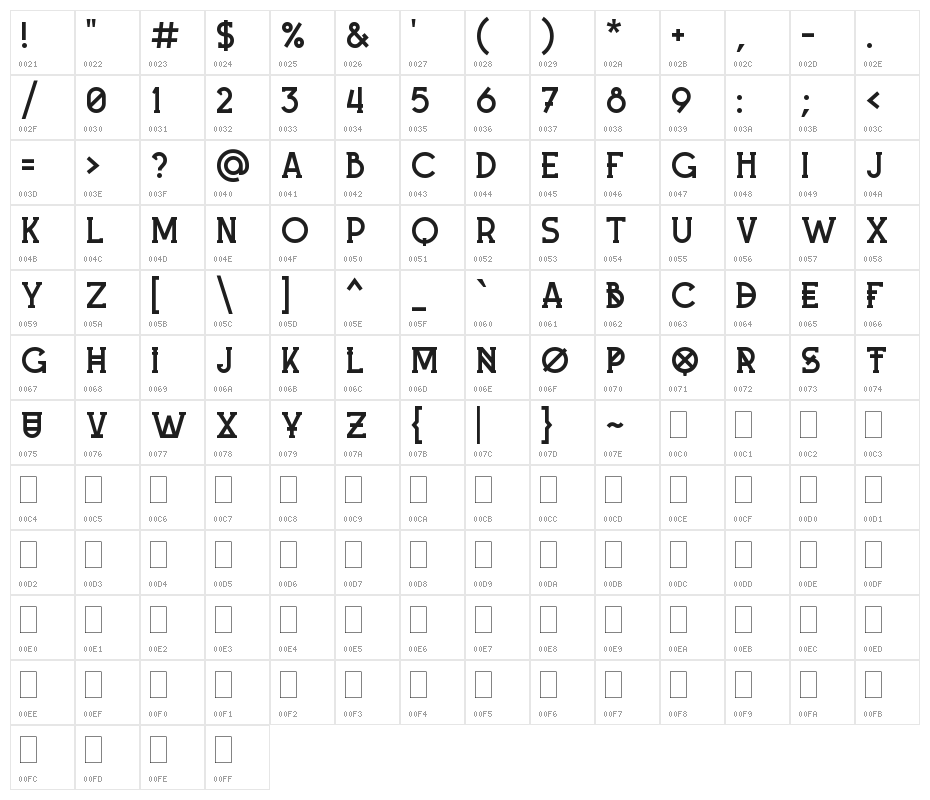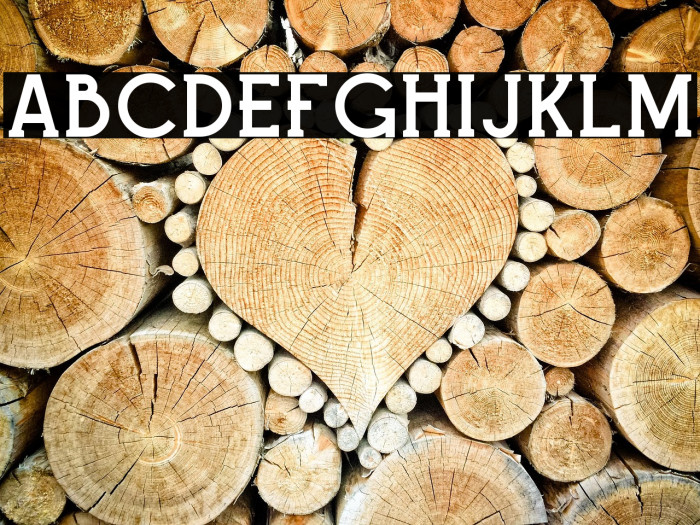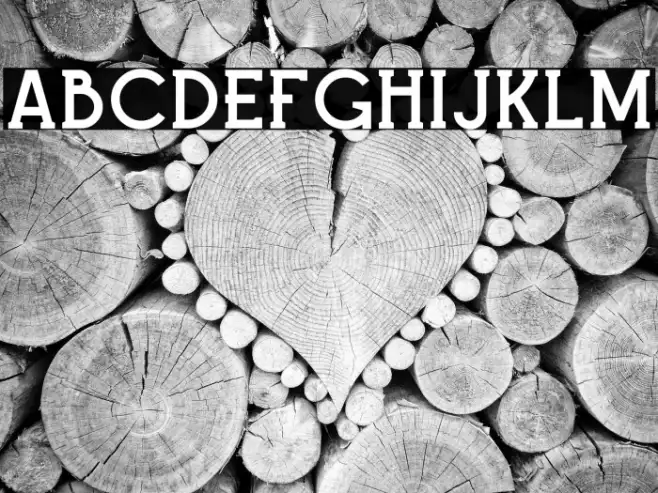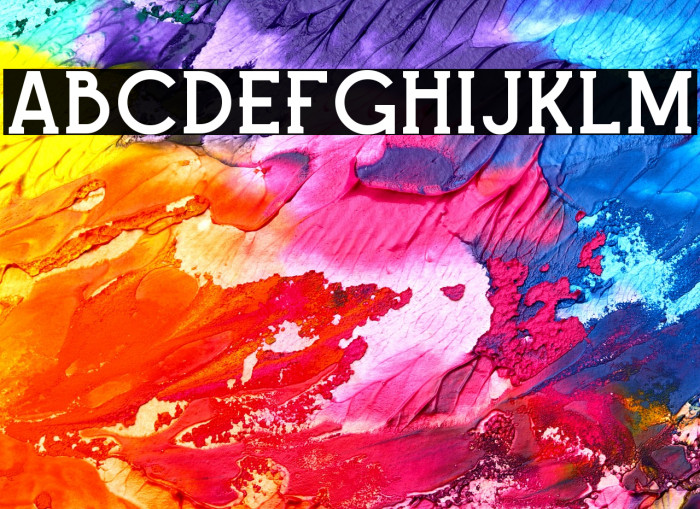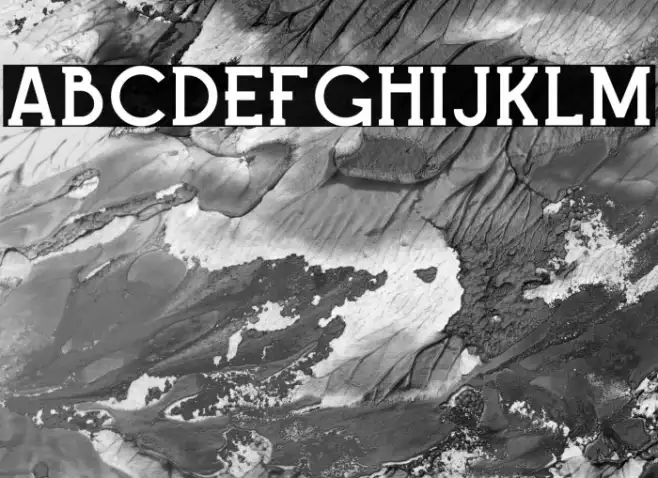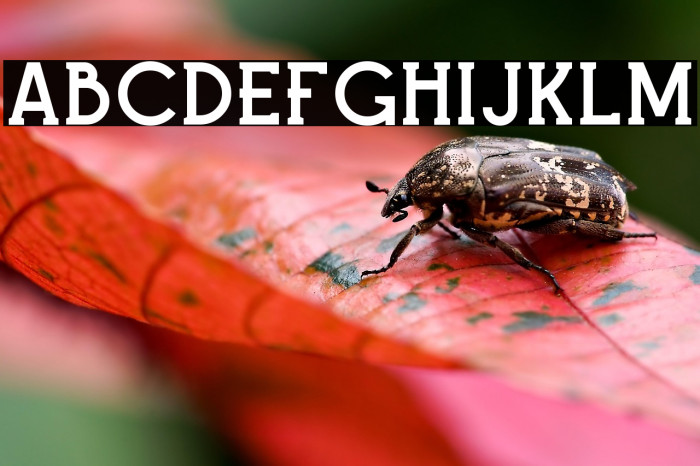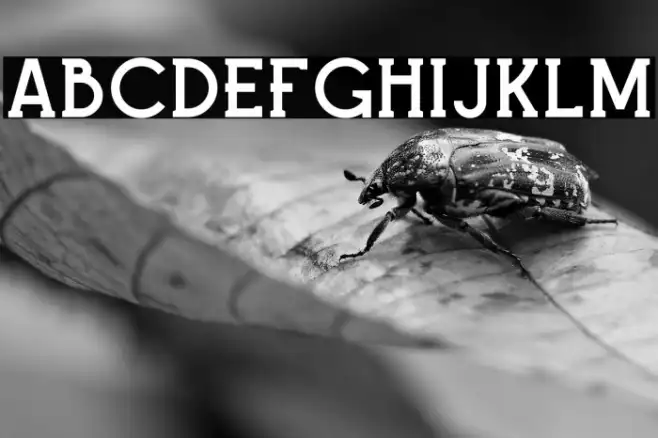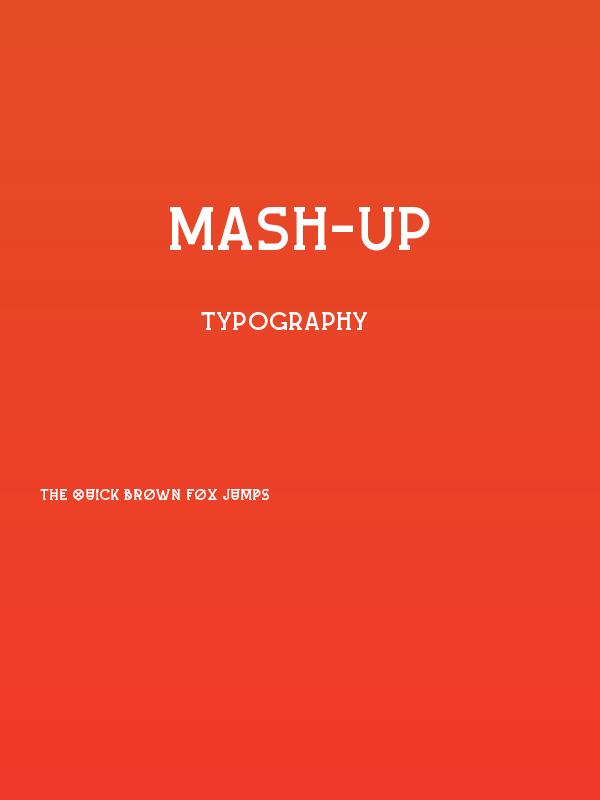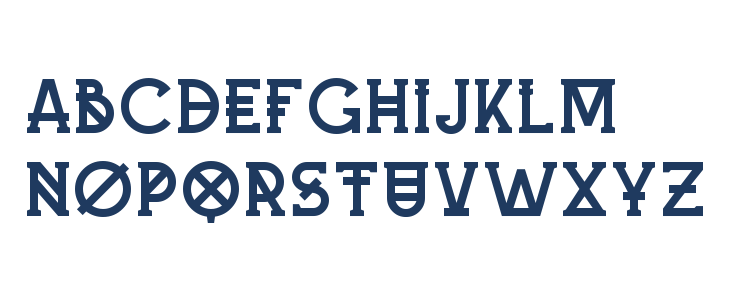
Mash-up Font
Mash-up Description
This font features a bold and striking design with a modern twist. The uppercase letters are characterized by strong geometric shapes and consistent stroke widths, giving them a robust and impactful appearance. The inclusion of unique elements, such as slashed zeros and distinctive letterforms like the 'ΓΛ' and 'Γβ ', adds a touch of uniqueness and creativity. The numbers are equally bold, maintaining the geometric theme, and the special characters are designed to complement the overall style, making them suitable for attention-grabbing headlines or logos.
| Proposed Projects | Ideal for branding, logos, posters, and any project requiring a modern and bold aesthetic. |